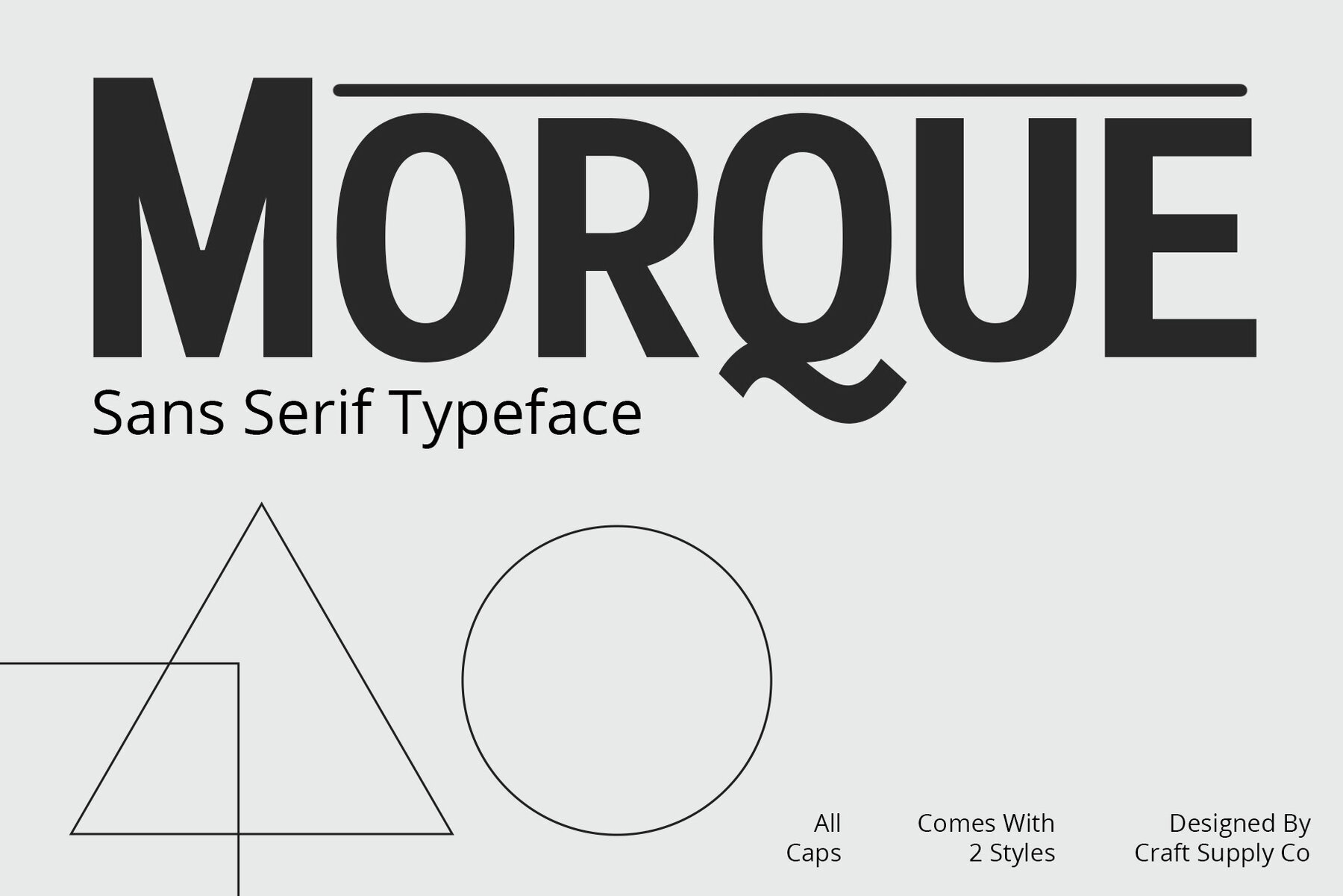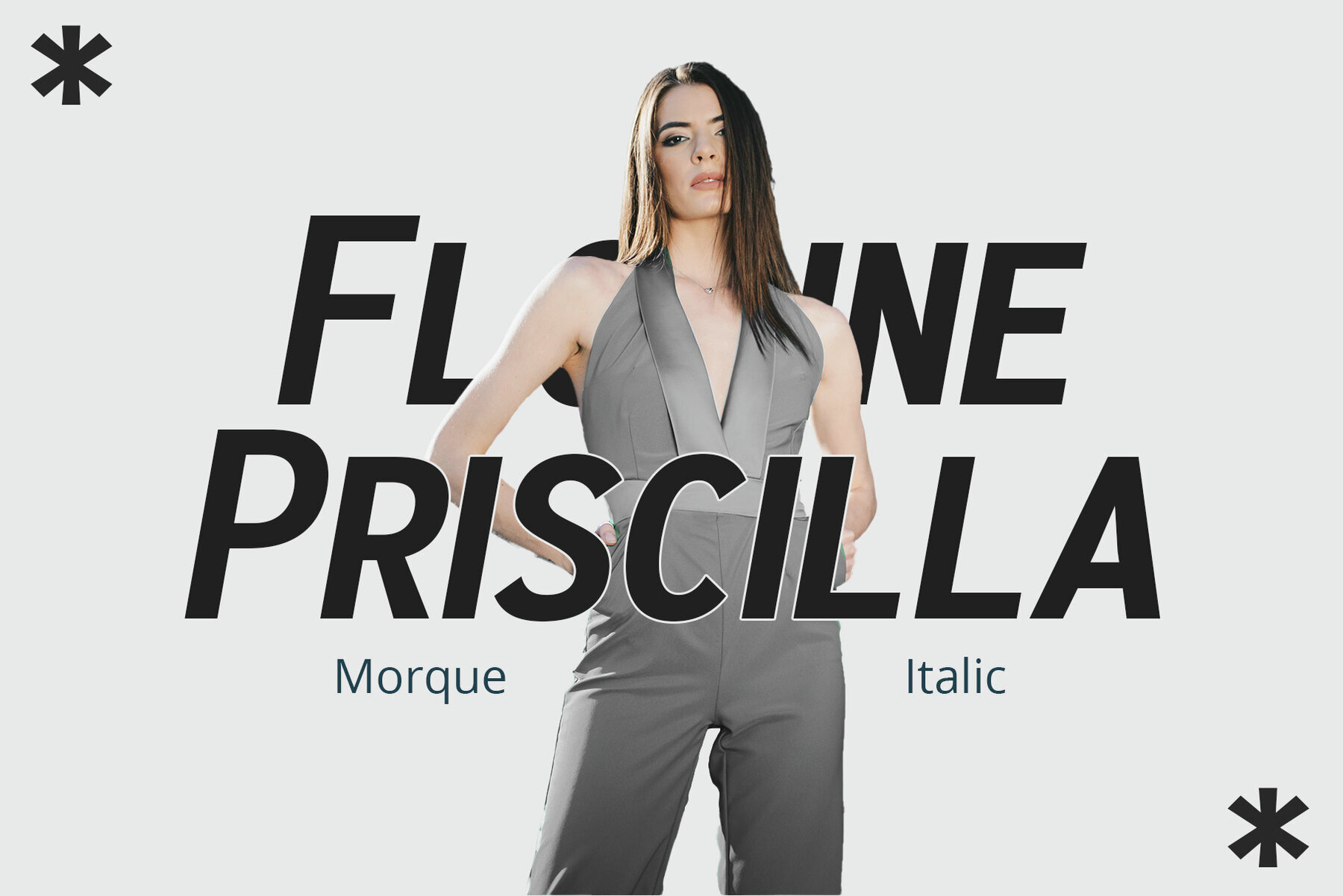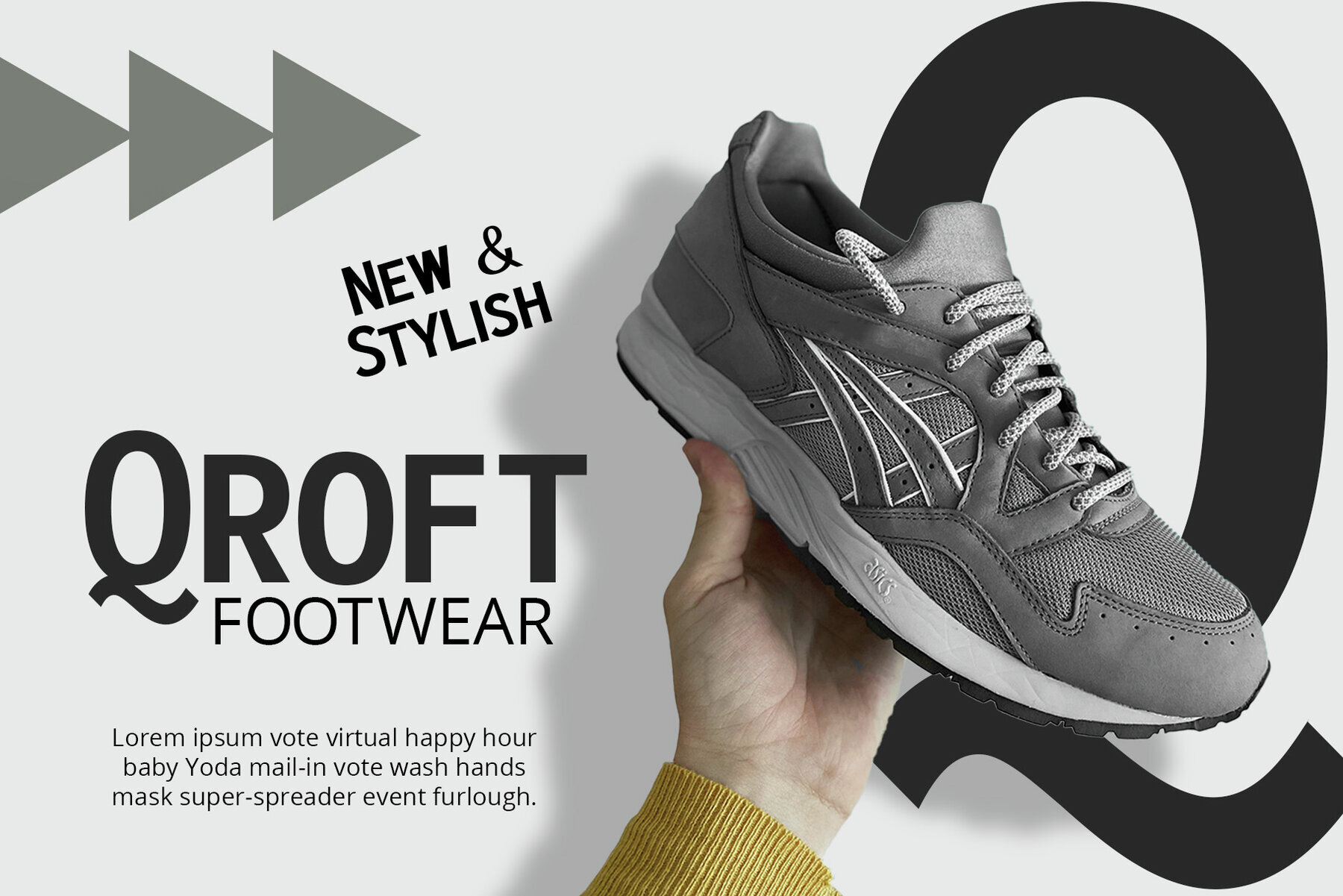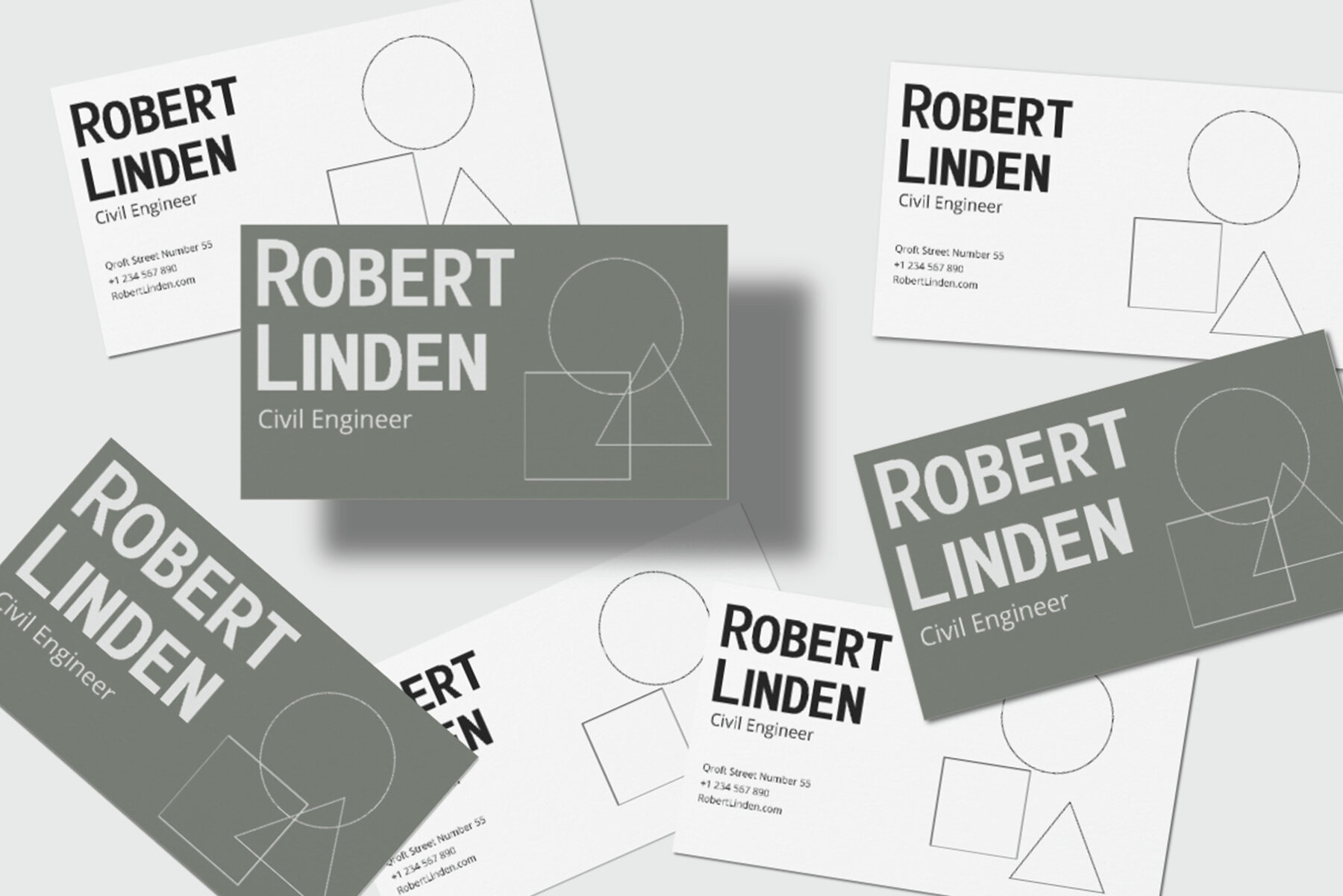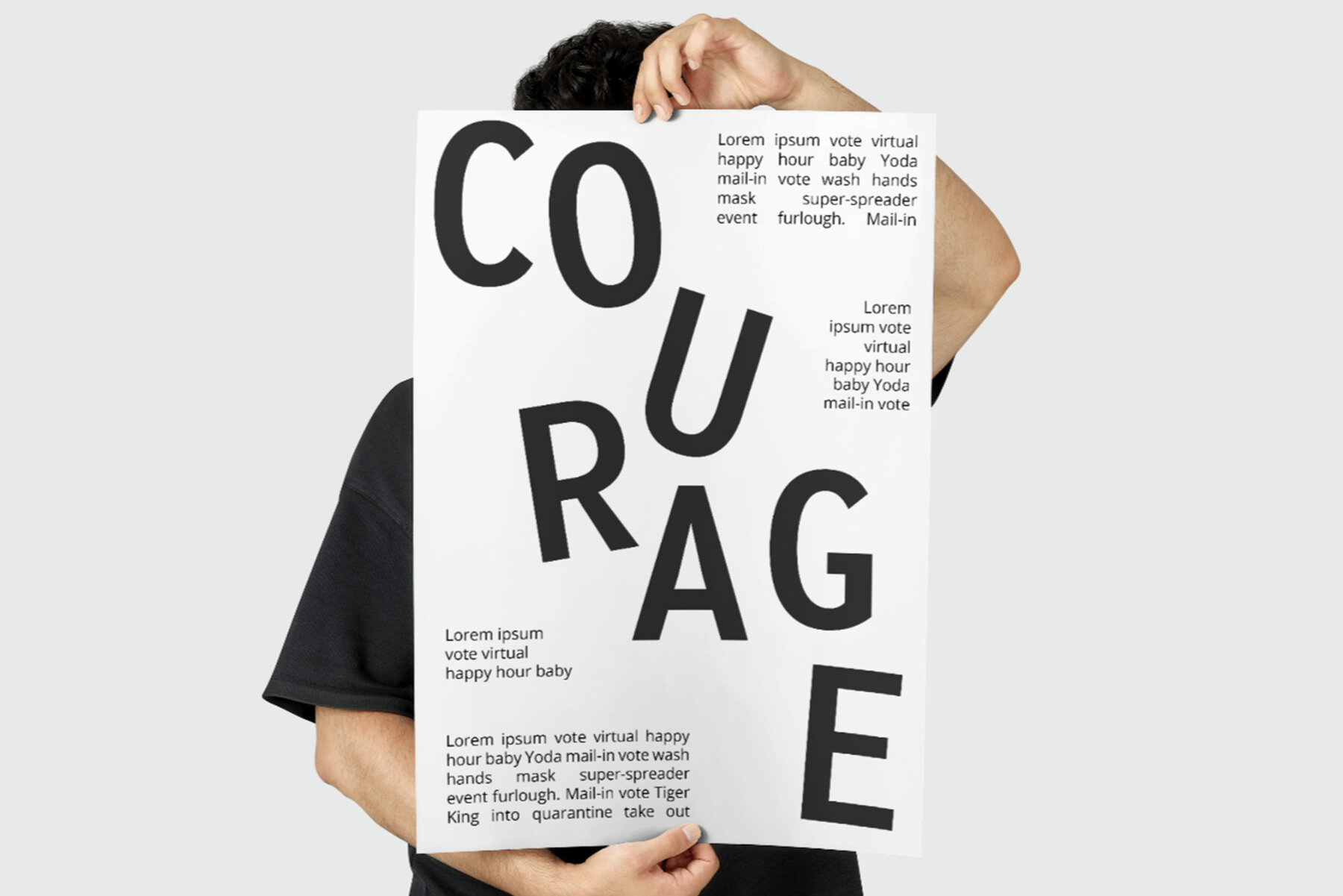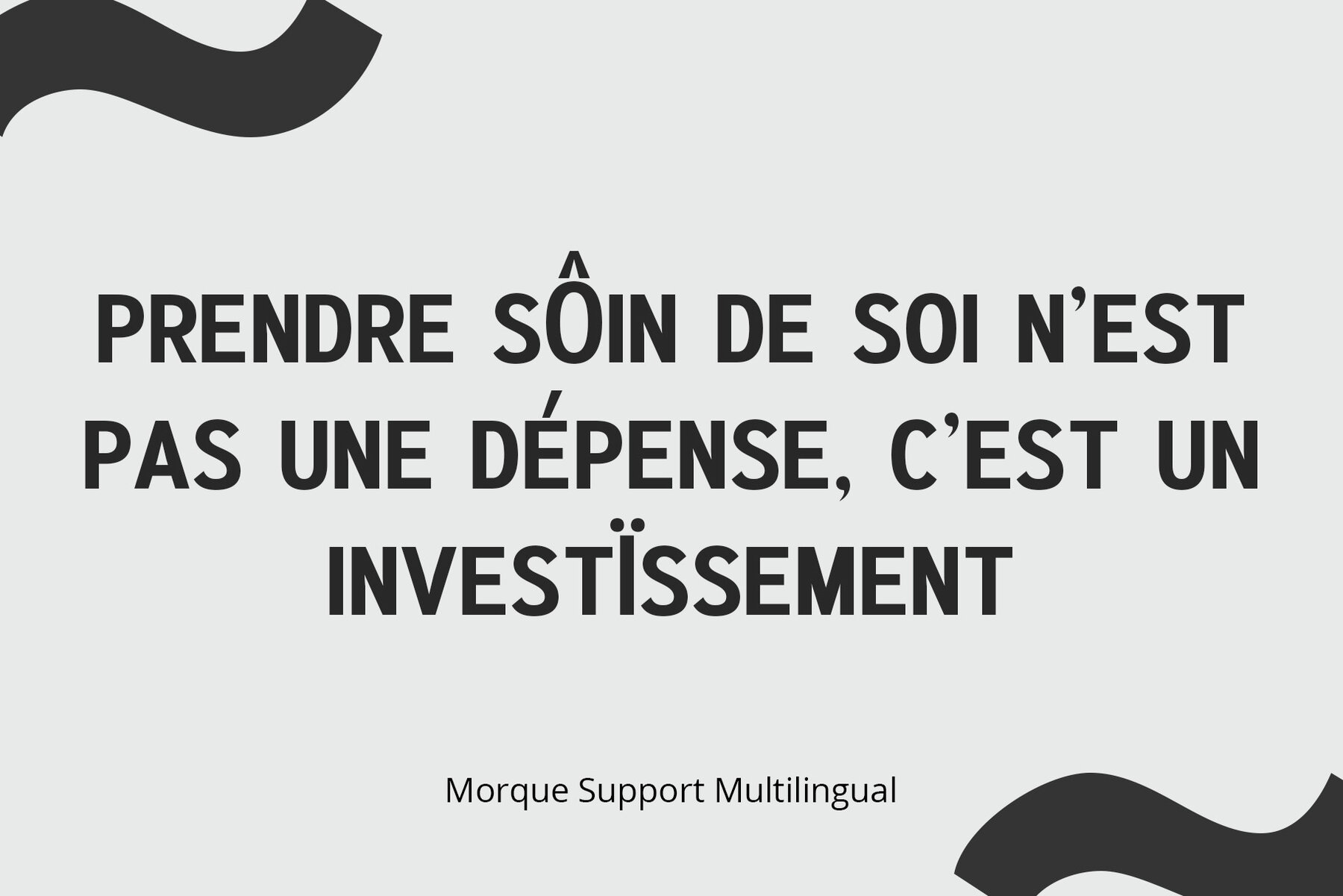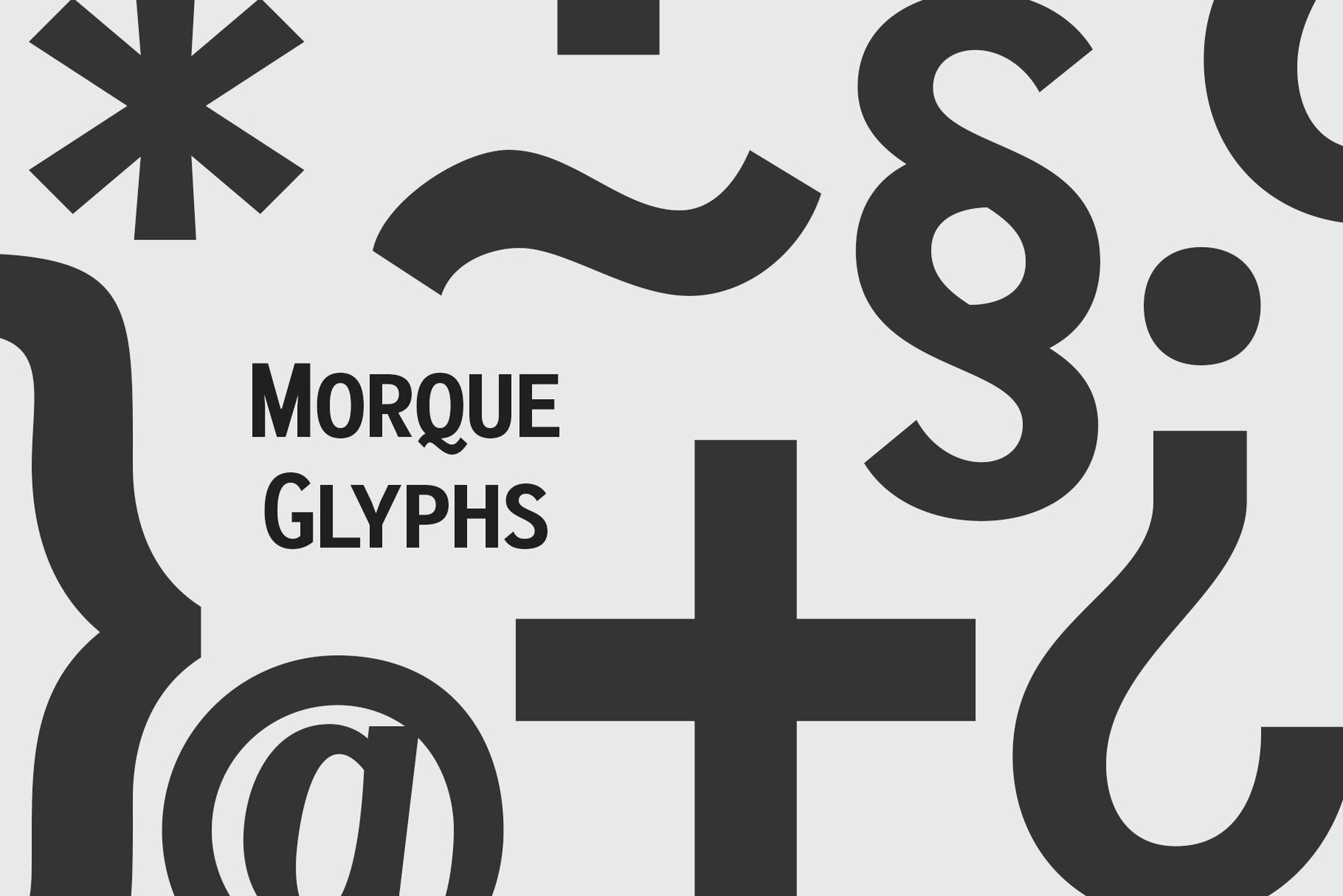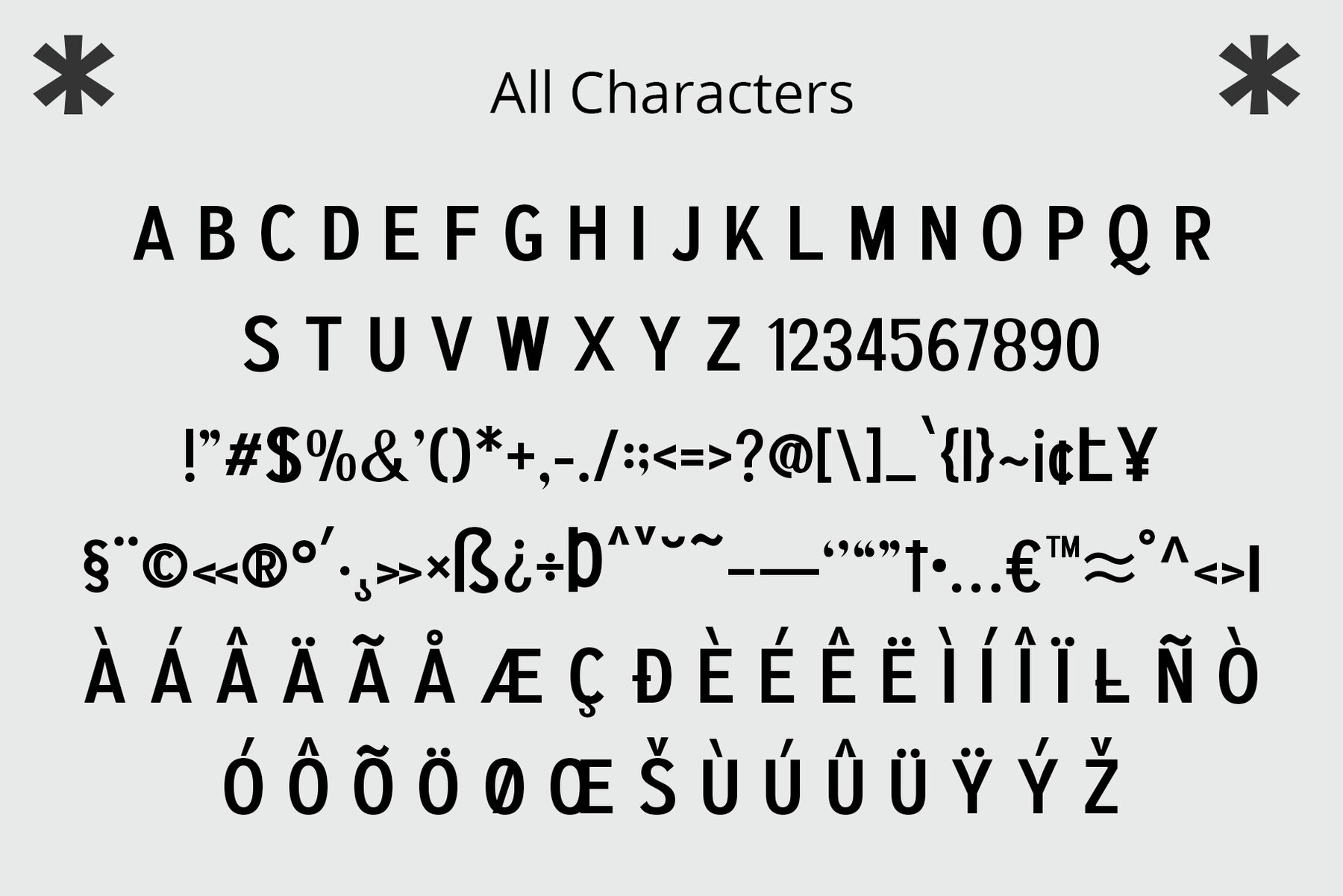
Morque: Bold Sans Serif for Impactful Design
Morque Sans Serif Font features an all-caps design that ensures your message stands out. It is perfect for titles and displays that demand attention in any visual space.
Ideal for Titles and Displays
The bold structure of Morque makes it perfect for headlines, enhancing readability and making a strong statement. It is an essential choice for designers looking to create visual impact.
Contemporary and Versatile
With its contemporary feel, Morque fits a variety of design needs. It is versatile enough for use in both digital and print media, adapting seamlessly to different contexts, from websites to posters.